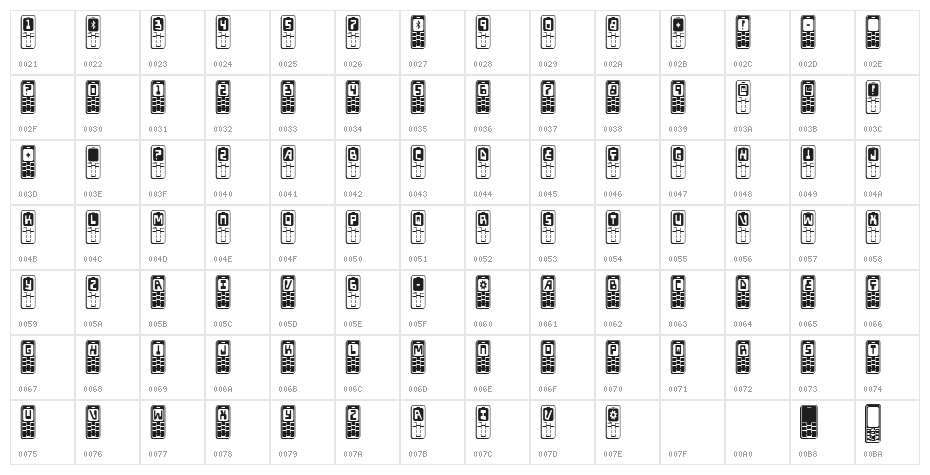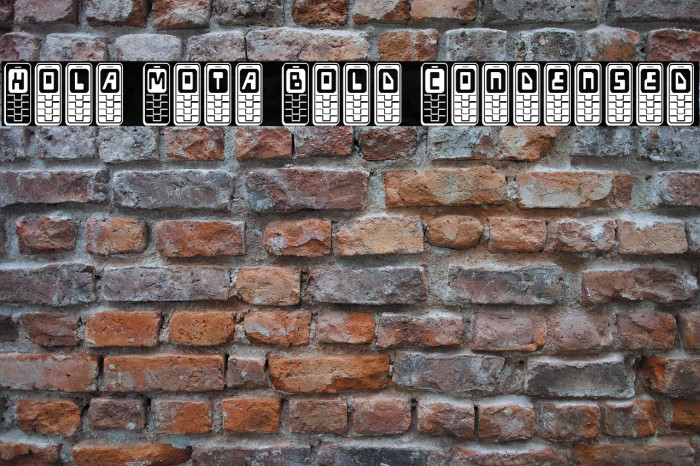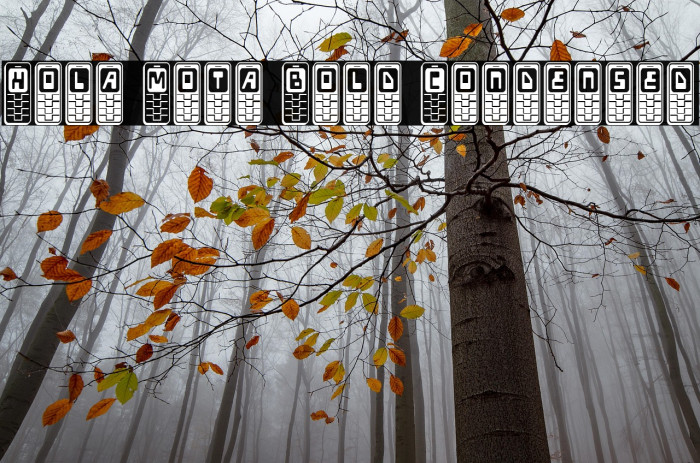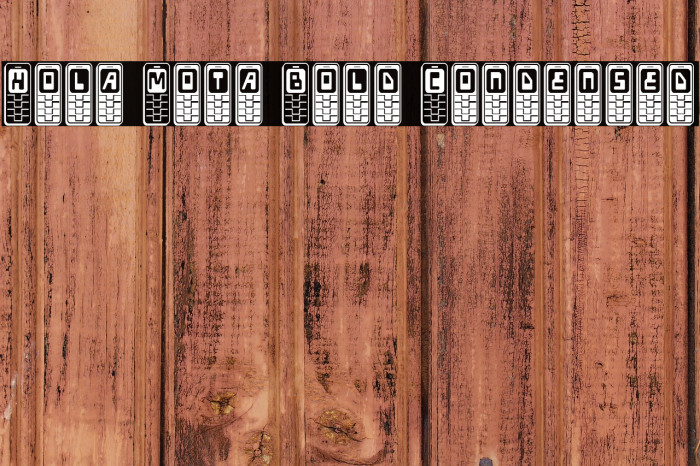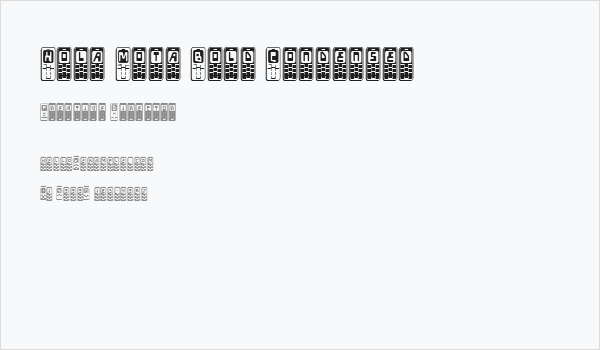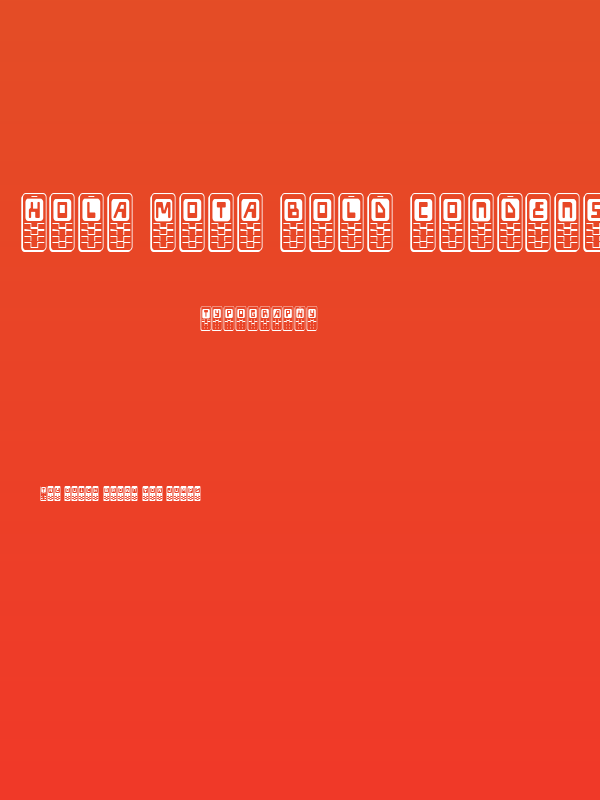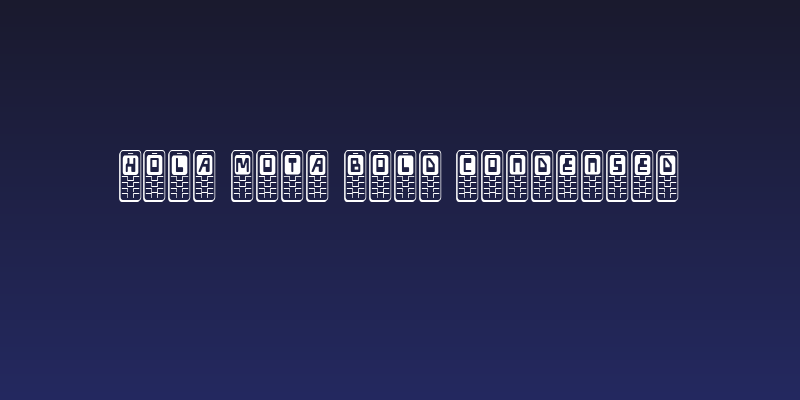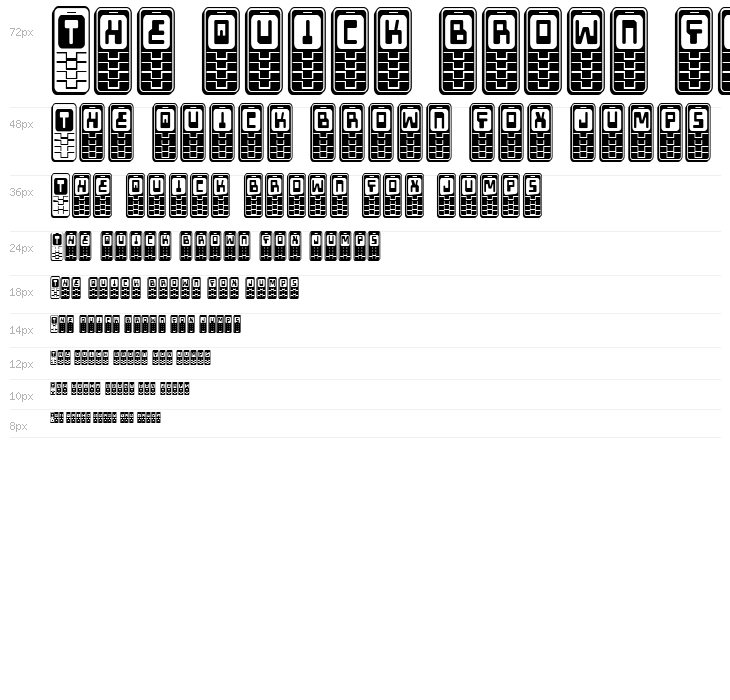
Hola Mota Bold Condensed Font
Hola Mota Bold Condensed Description
This font features a bold and condensed style with a distinct digital or technological aesthetic. Each character is enclosed within a rectangular shape, reminiscent of a keypad or digital display. The letters and numbers are blocky and geometric, with a strong emphasis on vertical and horizontal lines, creating a structured and modern appearance. The font's design is highly stylized, making it suitable for projects that require a futuristic or tech-inspired look. The characters are evenly spaced, contributing to a uniform and cohesive visual presentation.
| Use Case | Logos, Headlines, Digital Interfaces |
| Proposed Projects | Ideal for technology-themed projects, digital interfaces, video game graphics, and futuristic branding. |